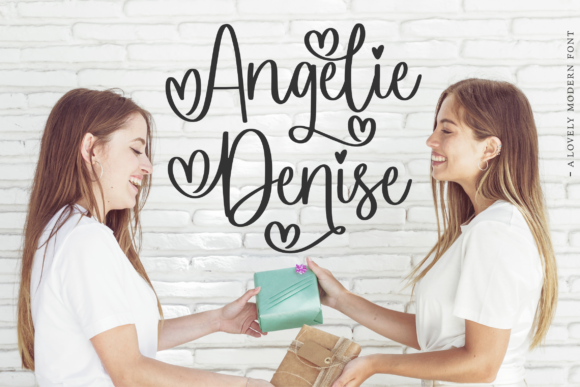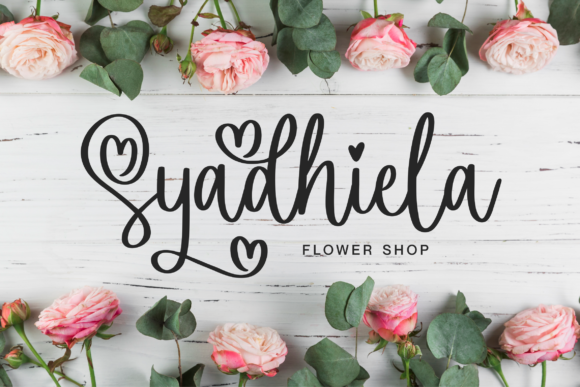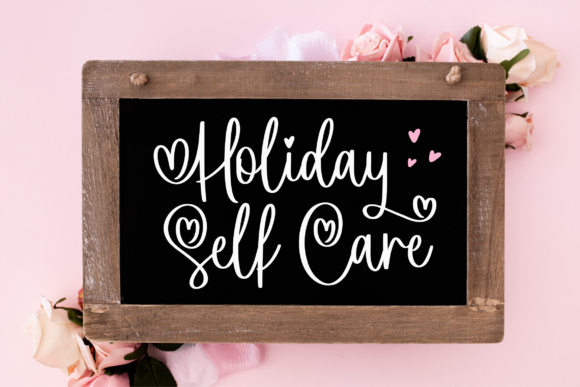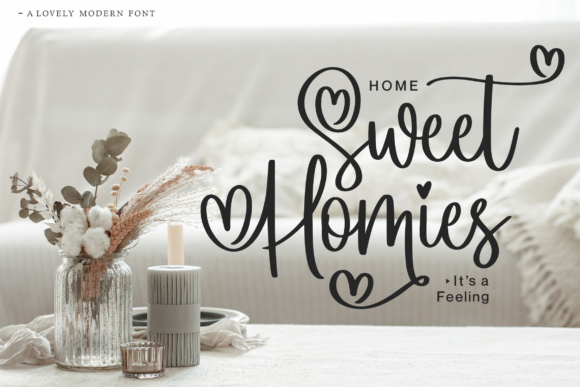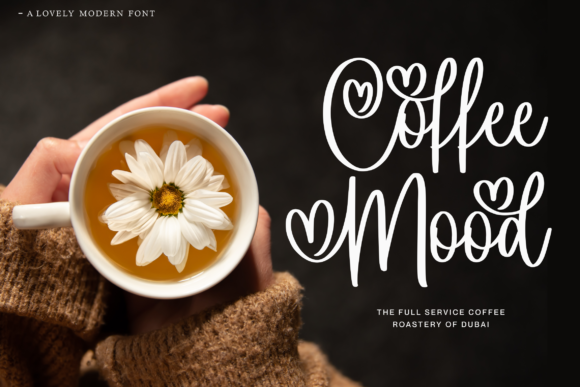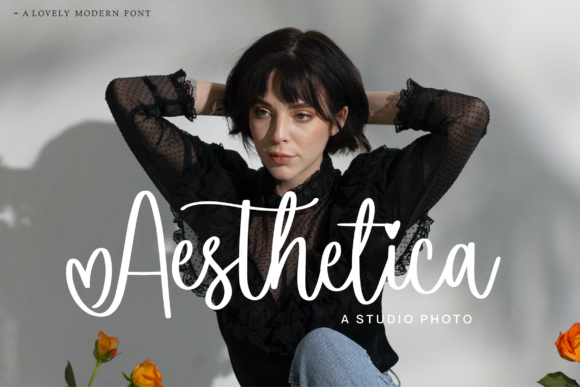
Introduction to Quimil Font
Quimil is a distinct graceful script font.
Fall for its ravishing style and use it to create gorgeous designs This font is PUA encoded which means you can access all glyphs and swashes with ease.
Key Features of Quimil Font
Quimil Font offers exceptional quality and versatility, making it a valuable addition to your design toolkit. Whether you’re creating for personal projects or commercial use, Quimil Font delivers professional results.